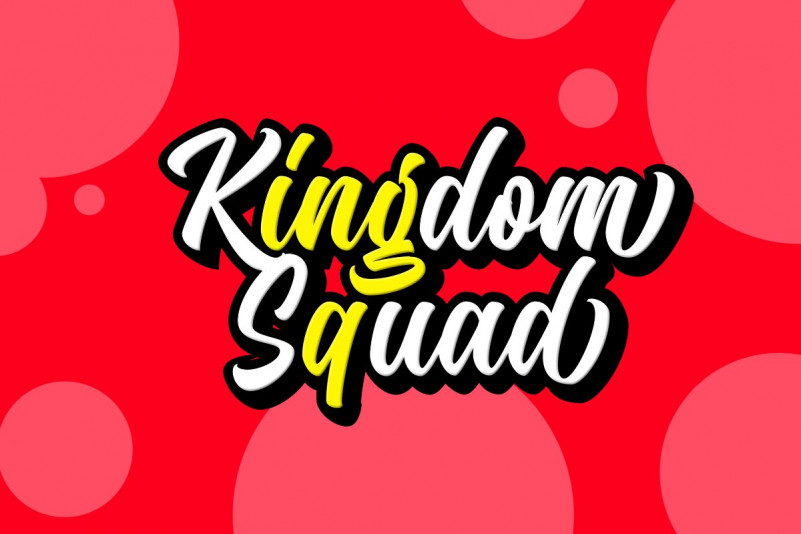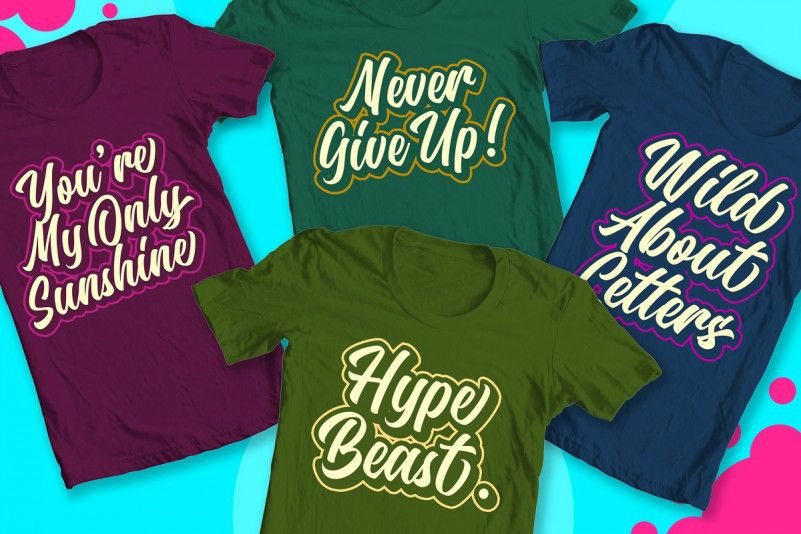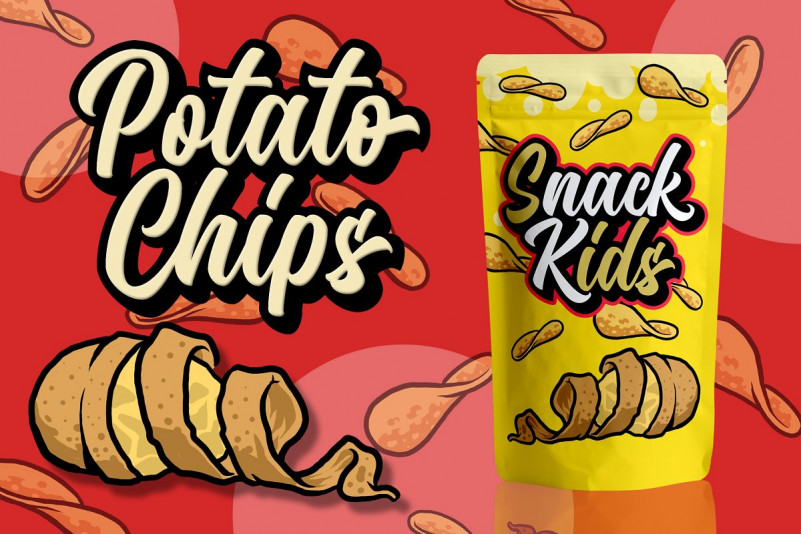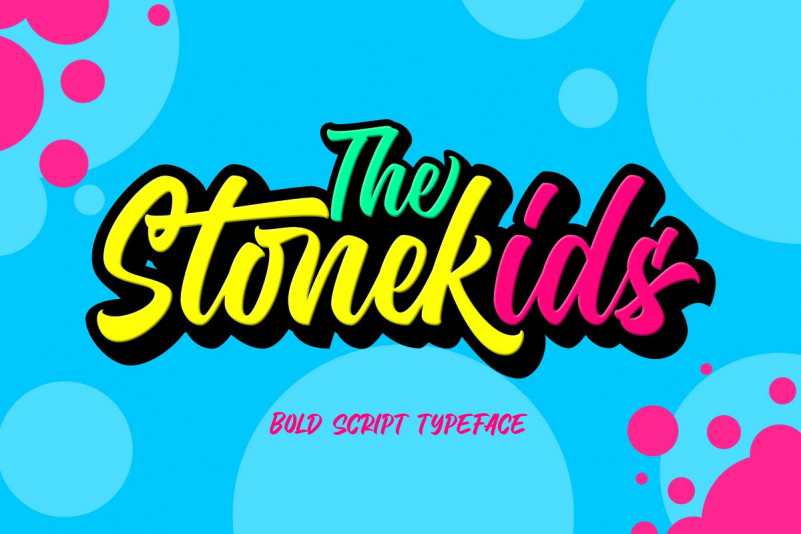
Stonekids Bold Script Font
A modern layered script font, so every single letter has been creative carefully. This font is ​perfect for making your set of project. Introducing Stonekids Script!  It is design and shared by Blankids Studio. A new Layered bold script. Stonekids inspired by handlettering, bold script logotype and kids font. Stonekids came with open type features and multilingual accent good for logotype, poster, badge, book cover, tshirt design, packaging and any more.